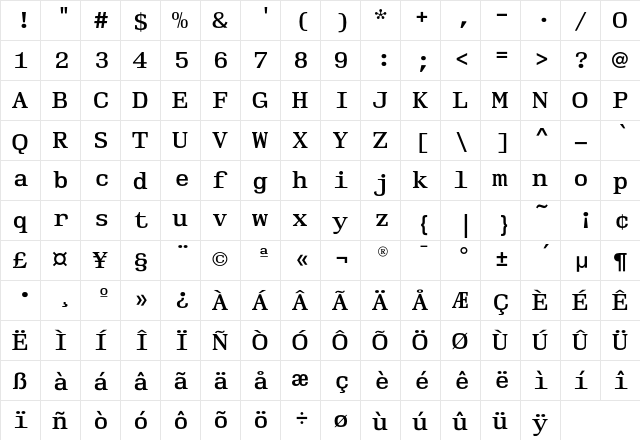
MonantiEF-SemiBold Regular
Design Context for MonantiEF-SemiBold Typeface
MonantiEF-SemiBold is a composed and adaptable typeface that performs quietly and consistently across a wide range of design contexts. Its bold stroke weight gives it real presence on the page.